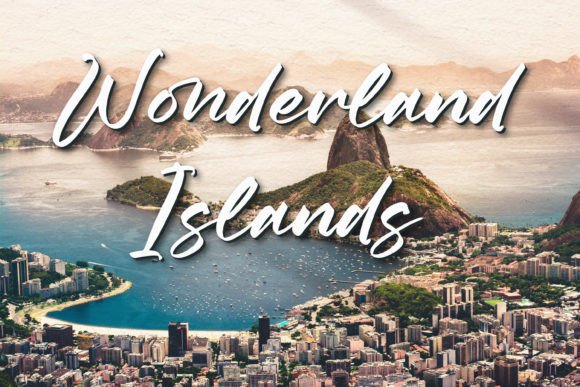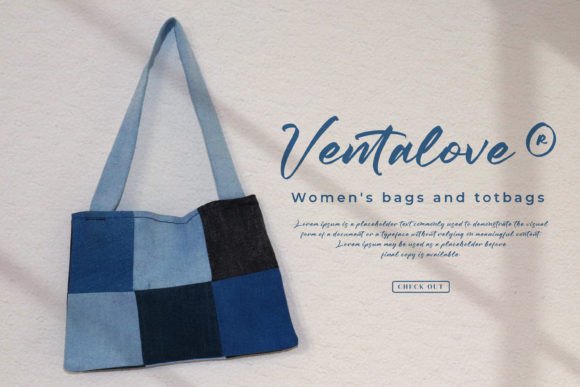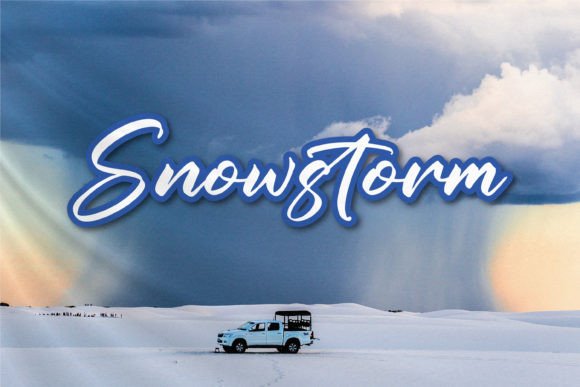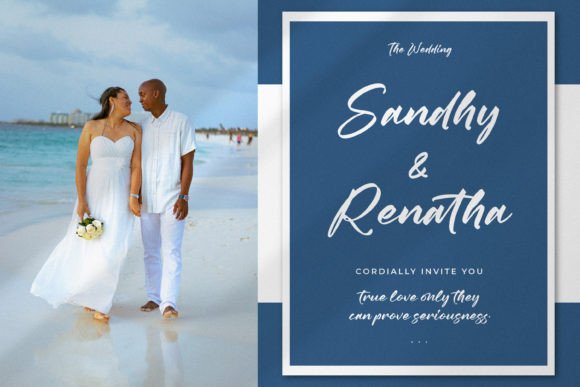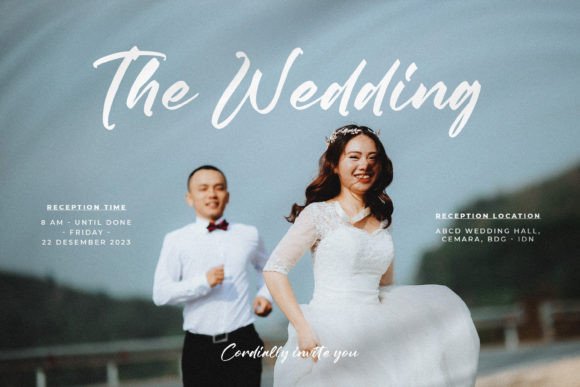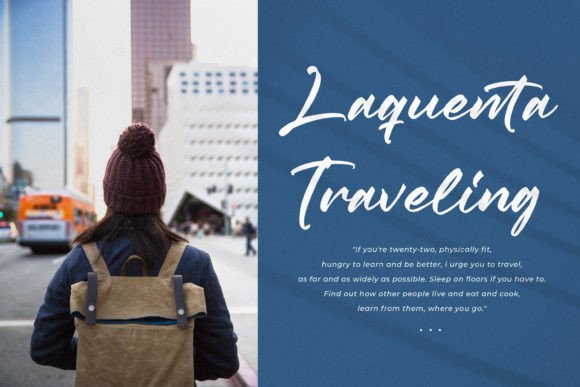
Introduction to Maison Victorya Font
Maison Victorya is a beautiful and modern handwritten font perfect for any project such as logos, branding projects, homeware designs, product packaging, mugs, quotes, posters, shopping bags, T-shirts, book covers, business cards, invitation cards, greeting cards, labels, photography, watermarks, special events, and all your other luxury projects that require a premium taste.
This font is PUA encoded, which means you can access all of the glyphs and swashes with ease .
Key Features of Maison Victorya Font